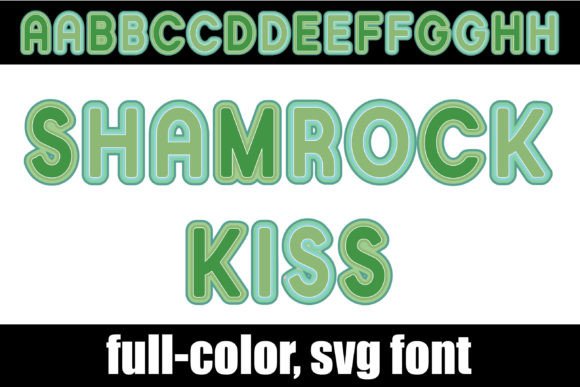
Shamrock Kiss: The Quintessential Font for Your St. Patrick's Day Designs
Embark on a delightful journey into the realm of Celtic charm with Shamrock Kiss, the ultimate modern font for your St. Patrick's Day creations. Its graceful curves and vibrant hues capture the essence of the Emerald Isle, bestowing a touch of enchantment upon your designs.
Experience the allure of Shamrock Kiss, a font family adorned with an array of captivating colors, each shade embodying the spirit of the Irish festivities. From the verdant hues of rolling hills to the golden glimmer of a pot of gold, this font palette ignites the imagination and sparks a sense of wonder.
With Shamrock Kiss, you hold the key to unlocking a world of creative possibilities. Whether crafting party invitations that exude mirth and merriment or designing greeting cards that convey heartfelt blessings, this font becomes your artistic wand, transforming ordinary words into extraordinary expressions of joy.
Enchant Your St. Patrick's Day Designs with Shamrock Kiss
As you navigate the digital realm, Shamrock Kiss emerges as your steadfast companion, adding a touch of whimsy to your social media posts. Its lively spirit dances across screens, captivating audiences with its infectious charm. Let Shamrock Kiss be the beacon of Irish cheer, illuminating your online presence with a kaleidoscope of colors and captivating fonts.
Unleash the Power of Shamrock Kiss
Shamrock Kiss is more than just a font; it's an open door to a world of creativity. Its PUA encoding grants you effortless access to a treasure trove of glyphs and swashes, empowering you to weave intricate designs and unleash your artistic flair. With Shamrock Kiss as your ally, the boundaries of imagination dissolve, and a universe of visual wonders awaits your exploration.
Embrace the magic of Shamrock Kiss, the ultimate font for your St. Patrick's Day designs. Let its vibrant hues and graceful lines ignite your imagination and transport you to a realm where creativity knows no bounds. Happy St. Patrick's Day!